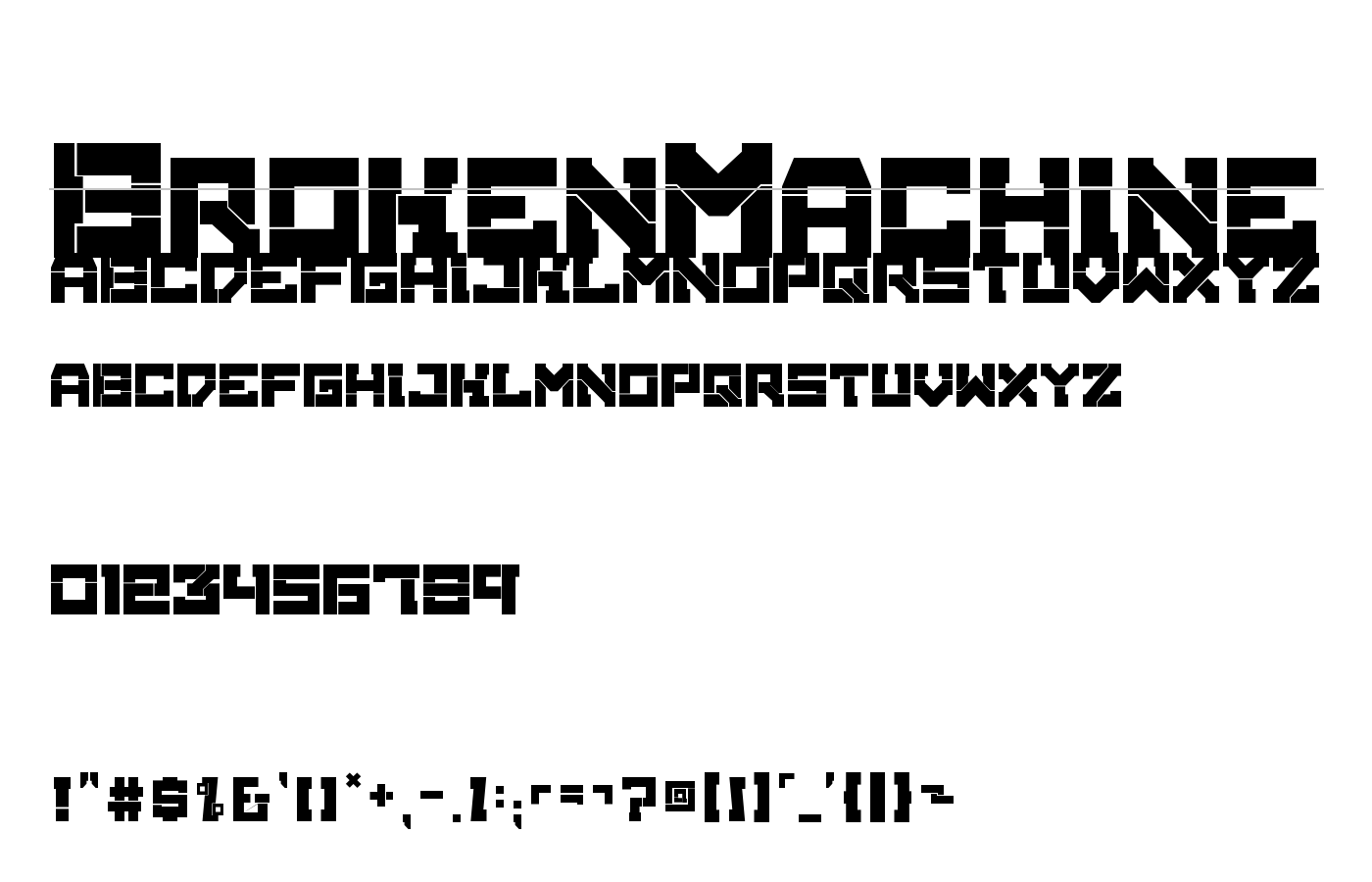
BrokenMachine is a bold, geometric sans serif font with a strong blocky structure and sharp angles that give it a futuristic, industrial feel. Its condensed width and high contrast between solid black shapes and whitespace create a striking, mechanical appearance perfect for edgy branding, tech-related projects, and eye-catching headlines. This font works best in display use where its unique, fragmented style can make a powerful visual impact.
BrokenMachine Font